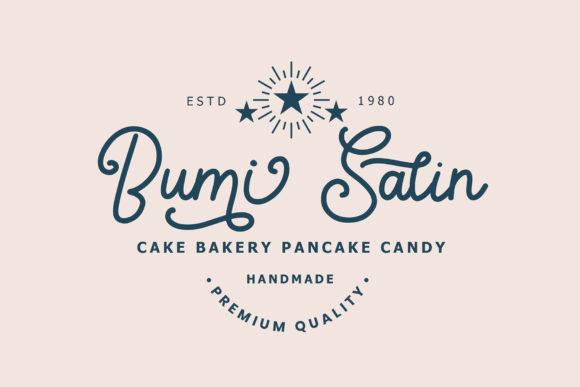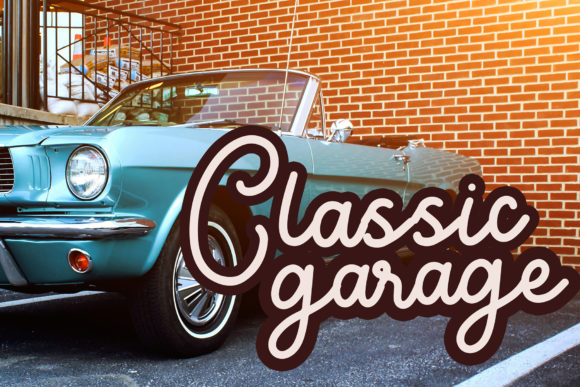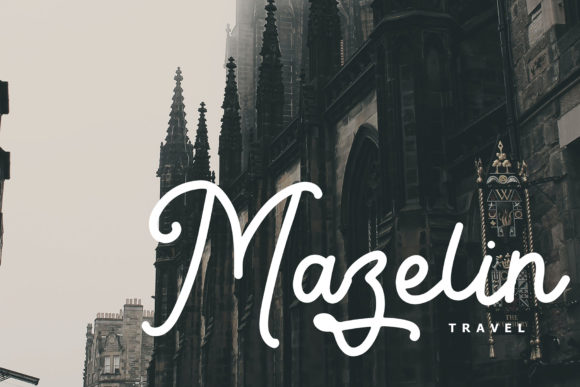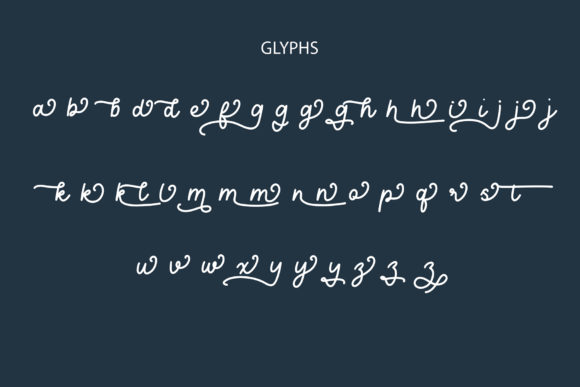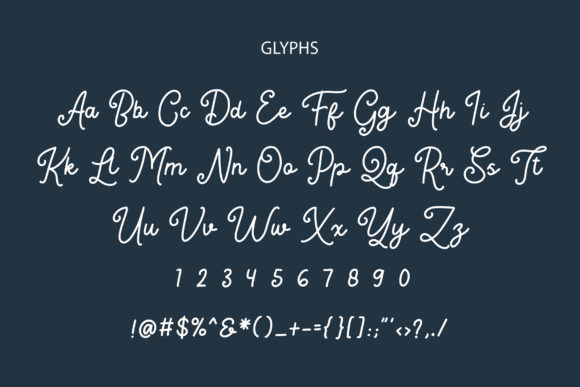
The Perfect Brush Stroke: Unveiling Angitany Font
You know that moment when you’re working on a project and the right font just clicks? It’s as if the entire design comes together, and you can’t help but feel a sense of pride and accomplishment. For designers, finding that perfect font can be a game-changer. That’s exactly what we’re excited to introduce you to – the stunning Angitany Font.
Angitany Font is a beautiful, delicate handwritten font that exudes a clean and smooth vibe. Its thin lines and subtle curves make it perfect for adding a touch of elegance to any design. Whether you’re working on a wedding invitation, a blog post, or a social media campaign, Angitany Font is sure to elevate your design to the next level. Its versatility and charm make it a valuable addition to any designer’s toolkit.
Angitany Font Key Features
- Unique Characteristics: Angitany Font features a unique blend of traditional and modern elements, with intricate details and subtle nuances that make it stand out from other fonts.
Review of Angitany Font
First off, I have to say that Angitany Font is a beautiful and elegant script font. ✨ The flowing lines and subtle flourishes make it perfect for adding a touch of sophistication to any design. ✨ The font is also highly legible, making it suitable for body text as well as headings.
One of the standout features of Angitany Font is its versatility. ✨ It can be used for a wide range of design projects, from fashion and beauty to weddings and fine dining. ✨ The font also comes in a range of weights, from light to bold, allowing you to customize the look to suit your needs.
Overall, I’m really impressed with Angitany Font. It’s a beautiful and elegant script font that’s perfect for adding a touch of sophistication to any design. While it may have some limitations, it’s a great choice for designers looking for a high-end script font.
The Angitany font is a beautiful, elegant script font suitable for various design projects. To get the most out of it, follow these steps:
Tips for Getting the Most Out of Angitany Font
1. Pair the font with a clean, simple sans-serif font for contrast.
2. Use the font in combination with watercolor or hand-drawn elements for a unique look.
3. Experiment with different font sizes and styles to achieve a visually appealing design.
The Angitany font is ideal for:
2. Branding and logo design.
3. Creative typography and graphics.